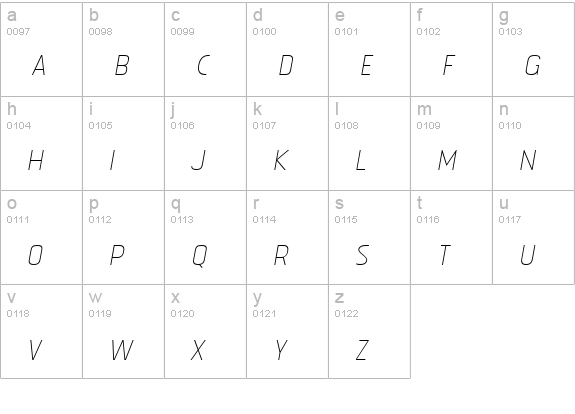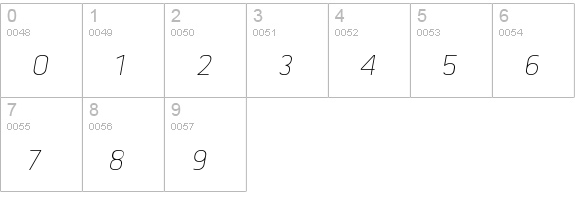
Tolyer Thin no.1 Oblique is a delicate, low-contrast, italic variant in the Tolyer typeface family \xE2\x80\x94 well suited to fashion editorial, minimal branding, and high-contrast display.
Introducing Tolyer Thin no.1 Oblique font, a sleek and stylish typeface that exudes elegance and sophistication. With its slanted design and delicate lines, this font is perfect for adding a touch of modernity to your projects. The Tolyer Thin no.1 Oblique font is ideal for creating eye-catching logos, invitations, posters, and more. What's even better is that this stunning font is completely free to download at FontsMarket.com. Don't miss out on the opportunity to enhance your designs with this versatile and unique typeface. Elevate your creative projects with Tolyer Thin no.1 Oblique font today!